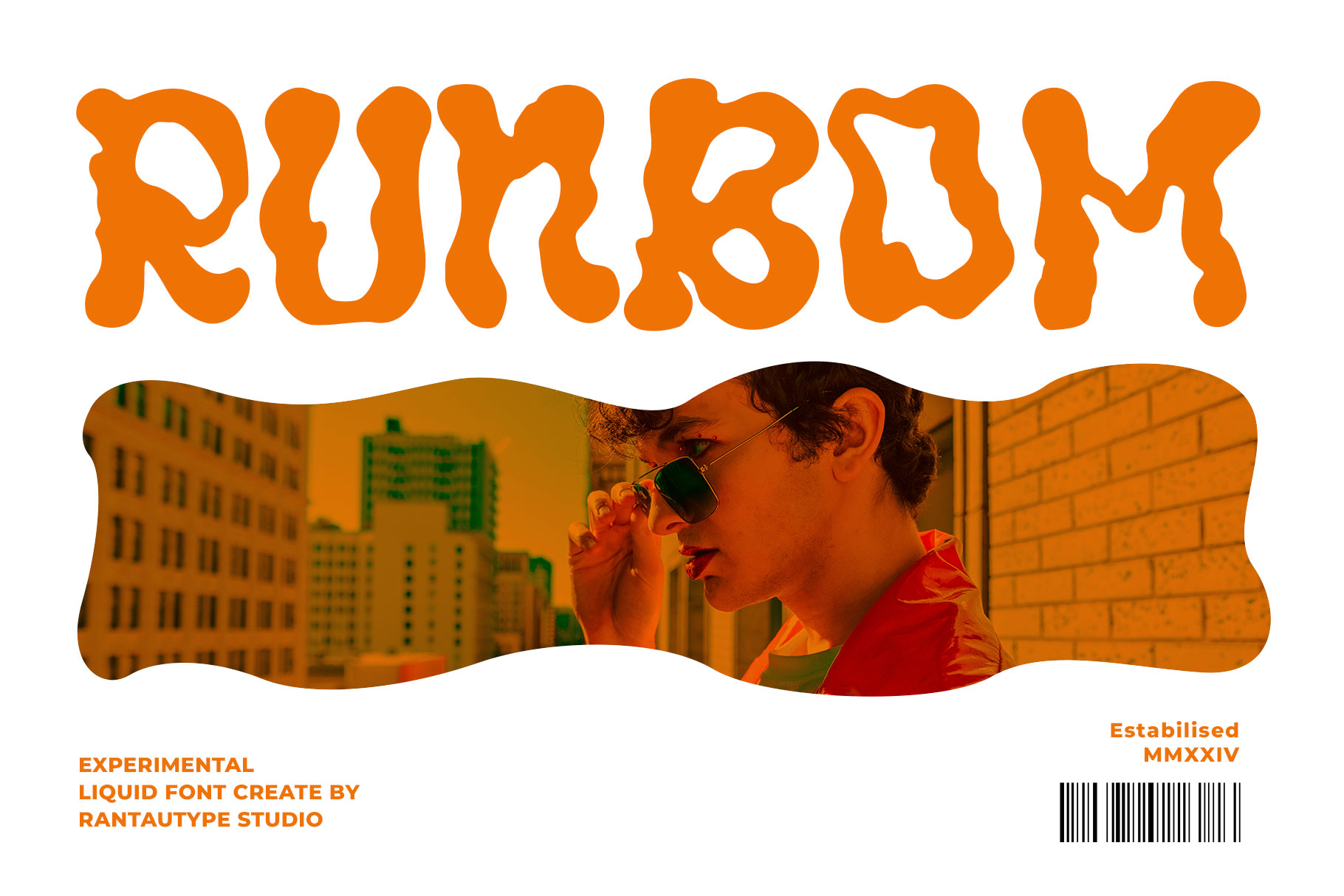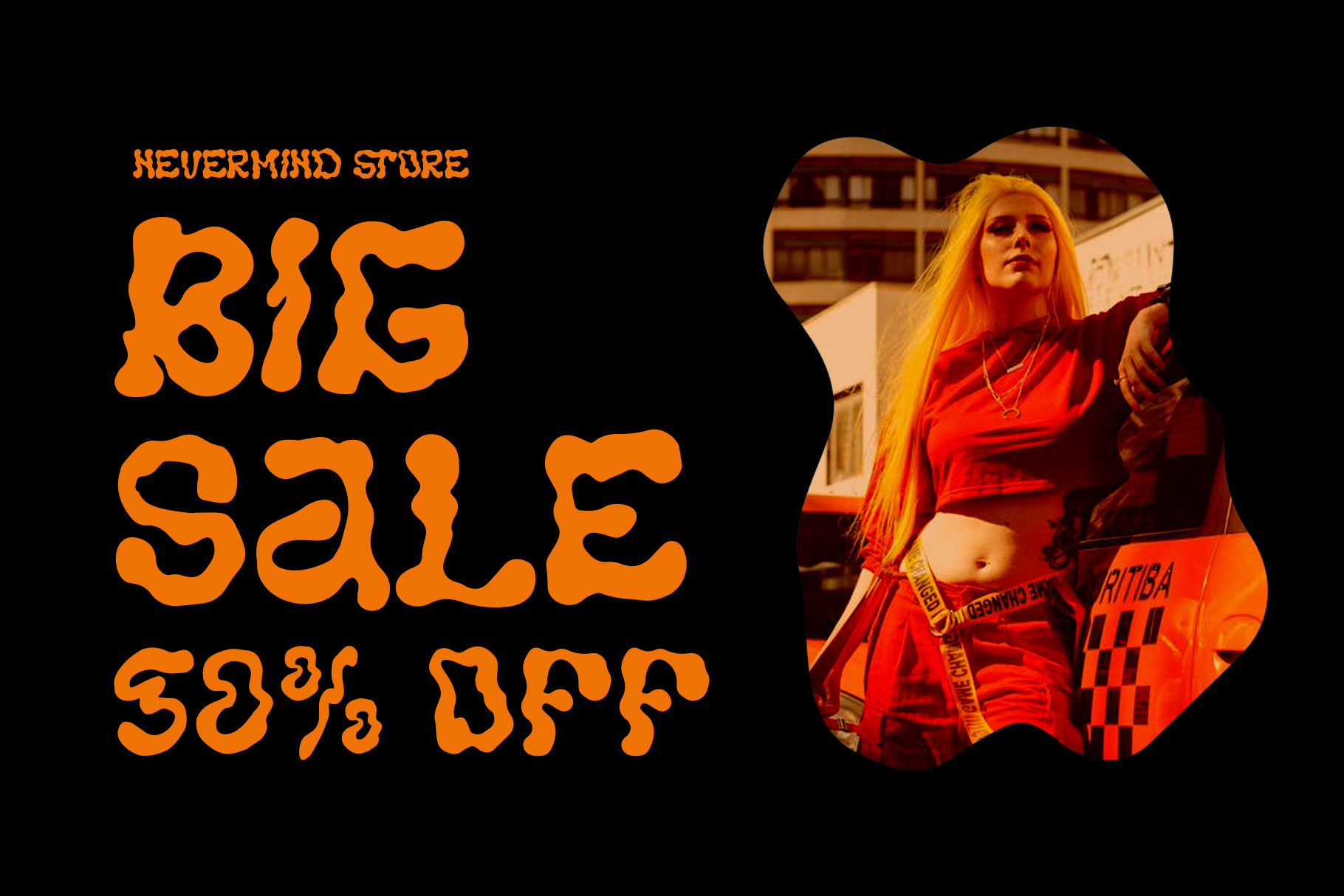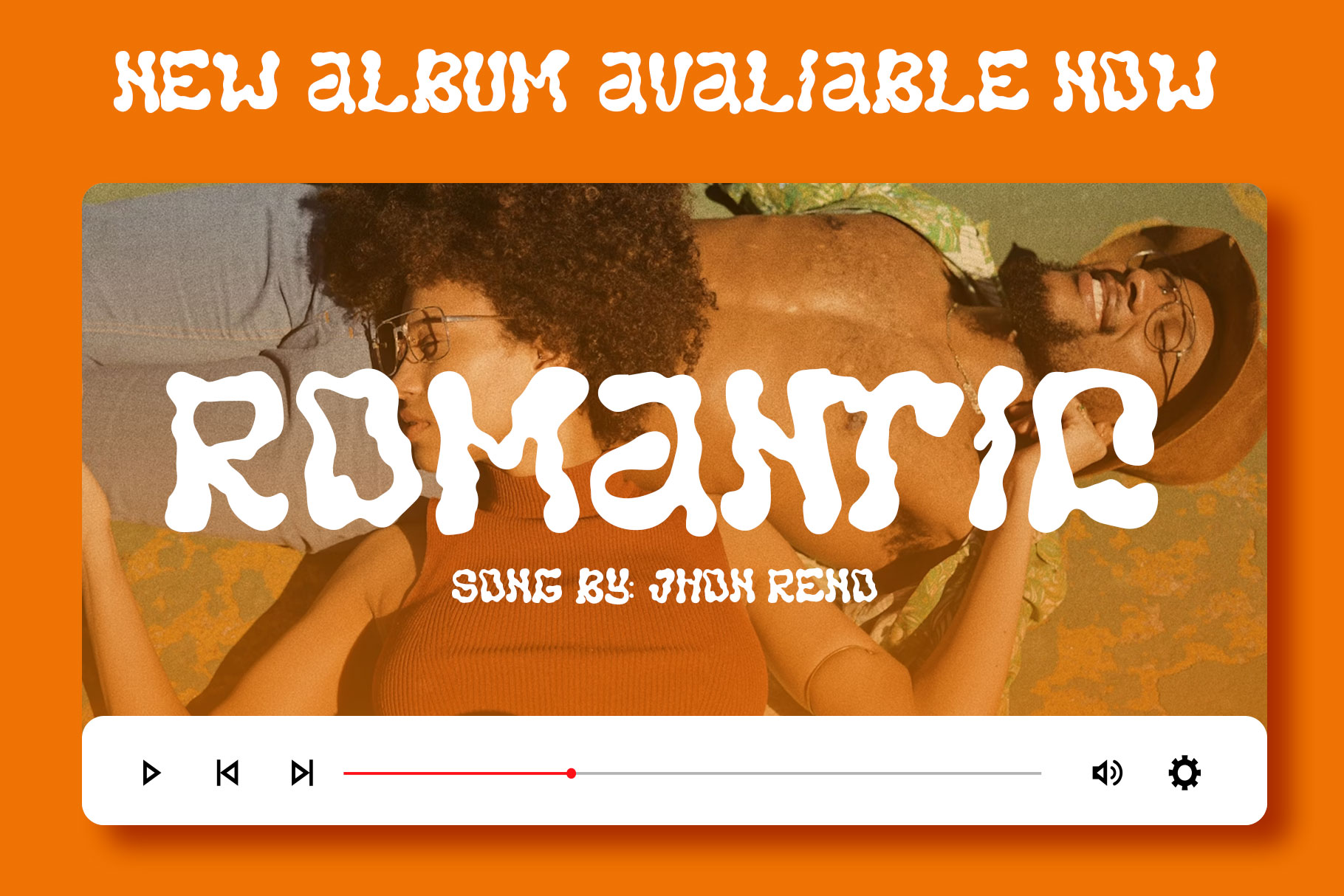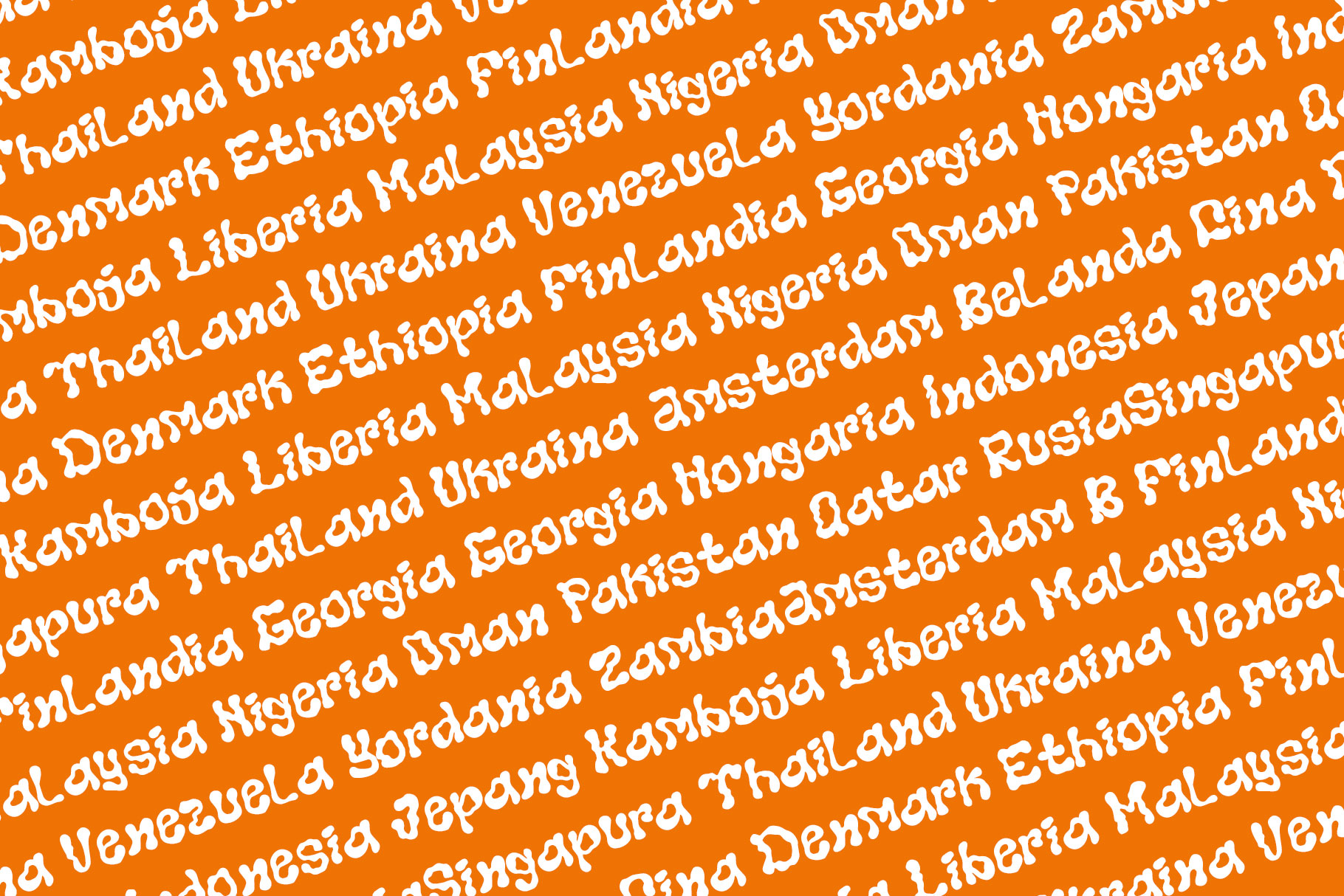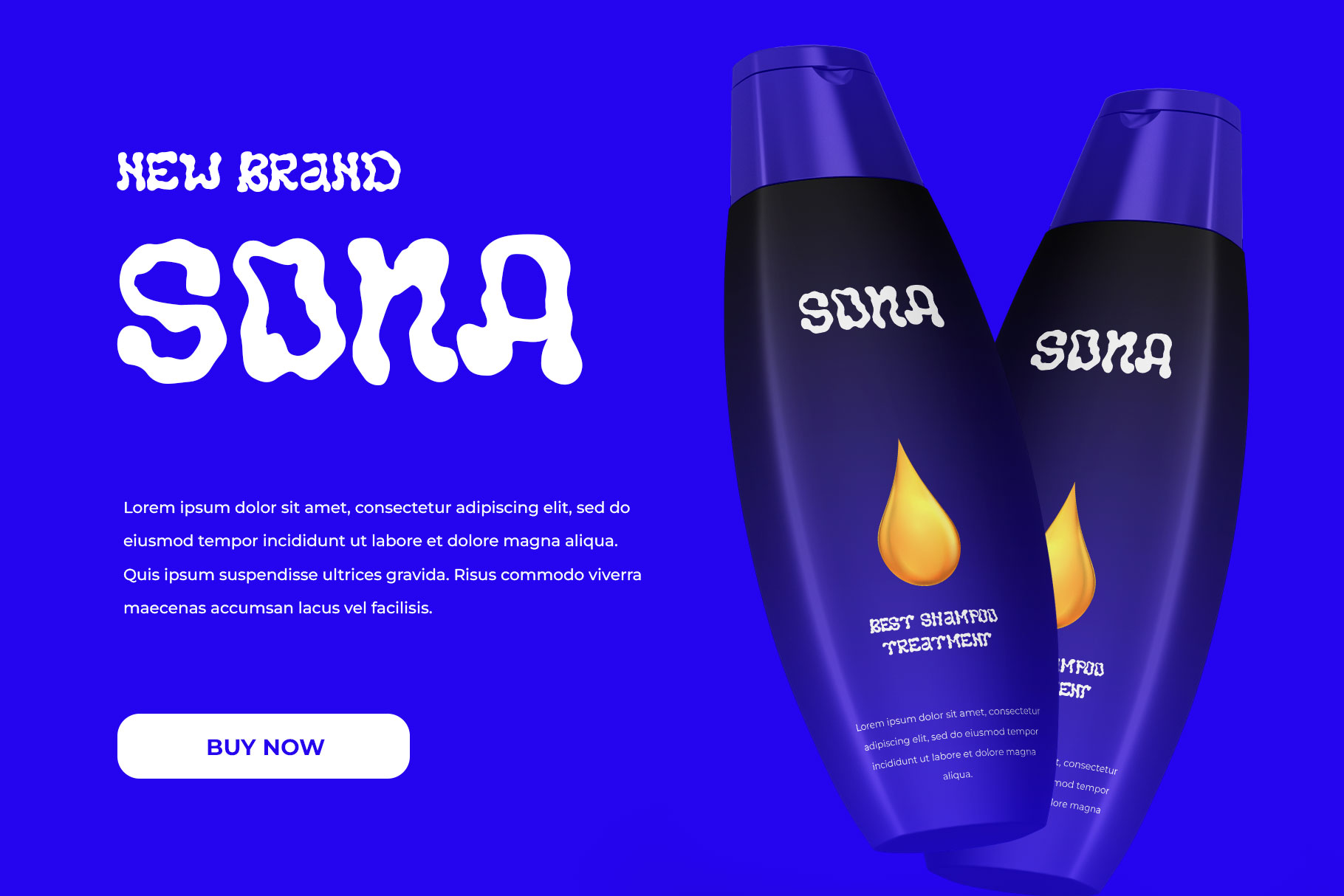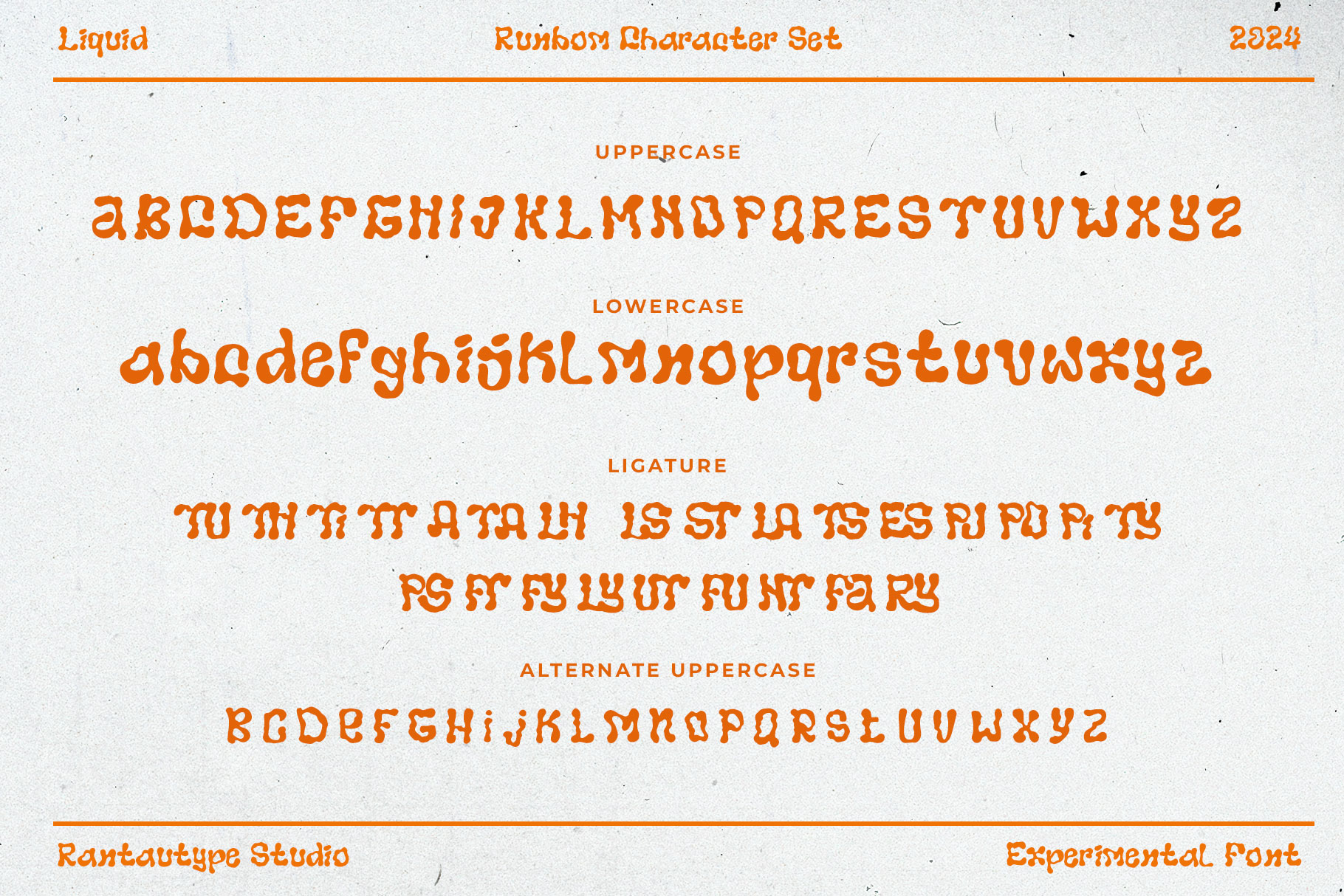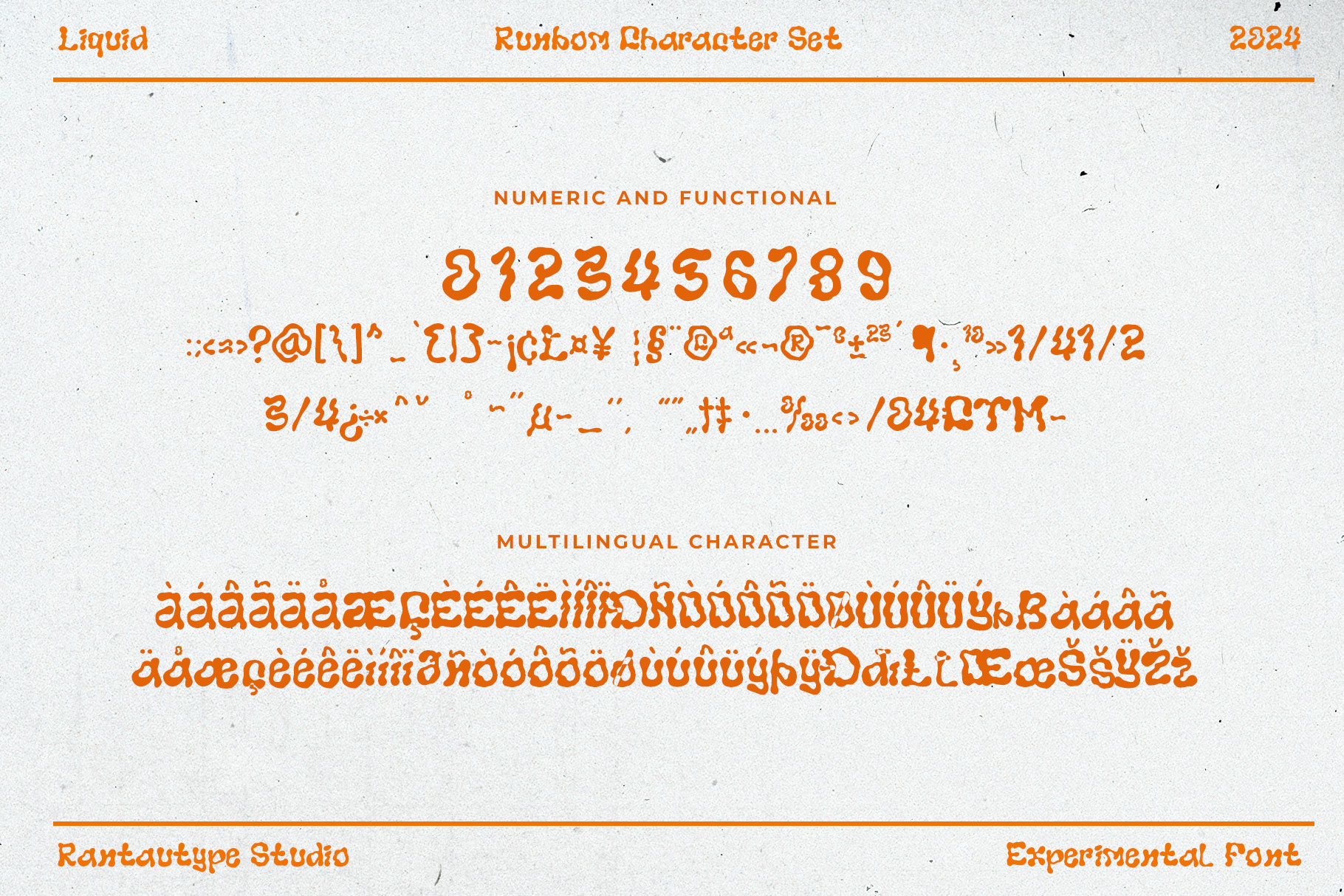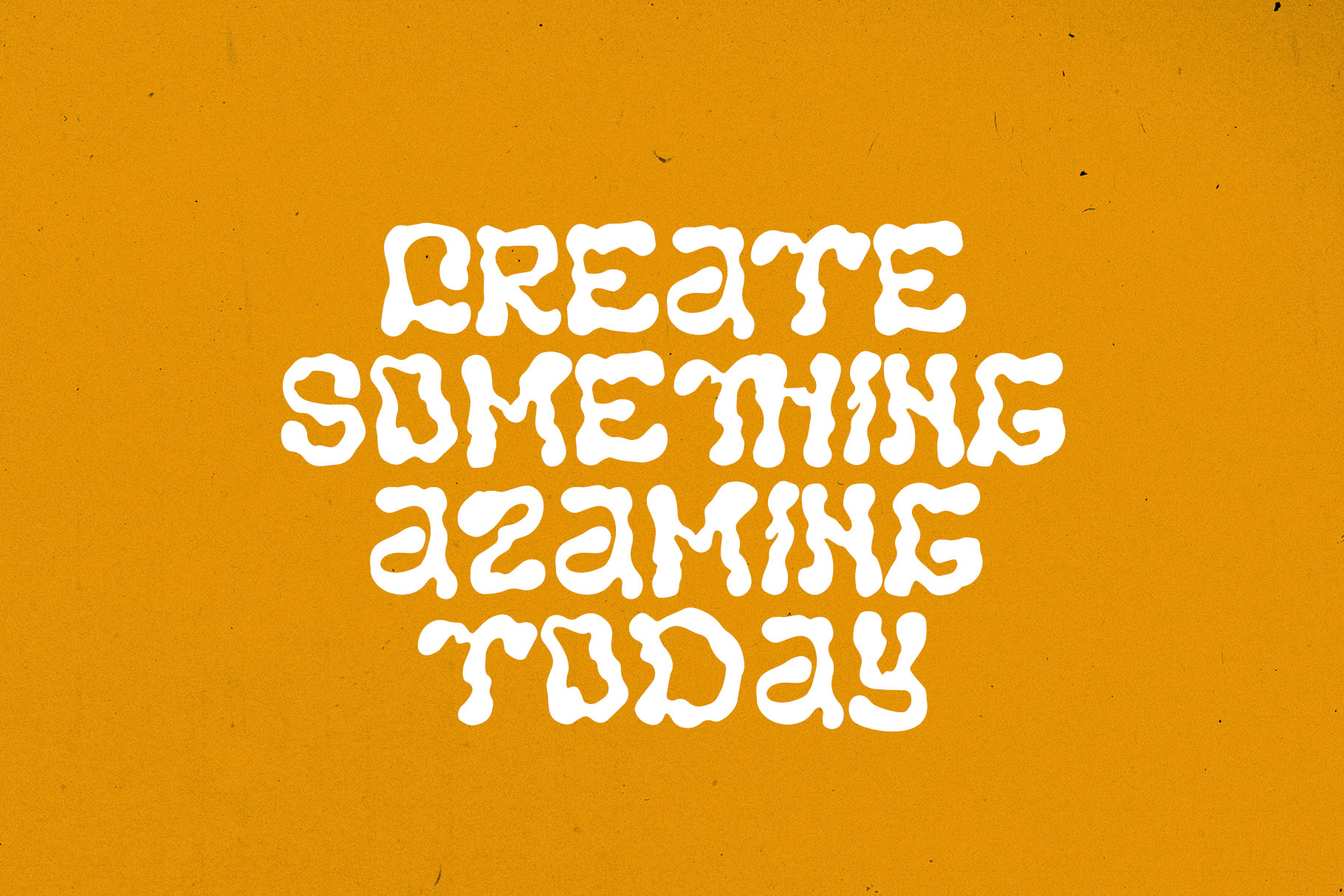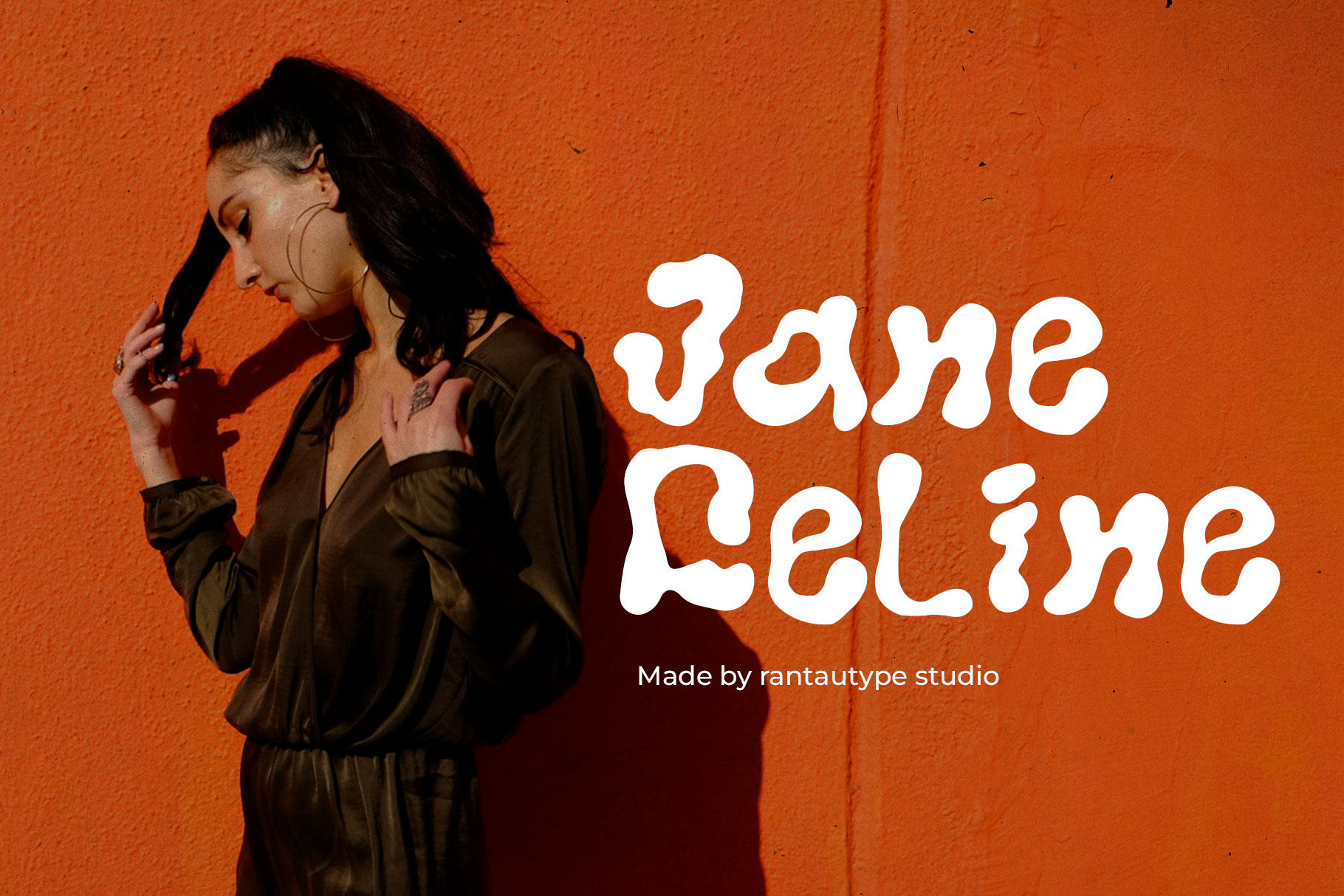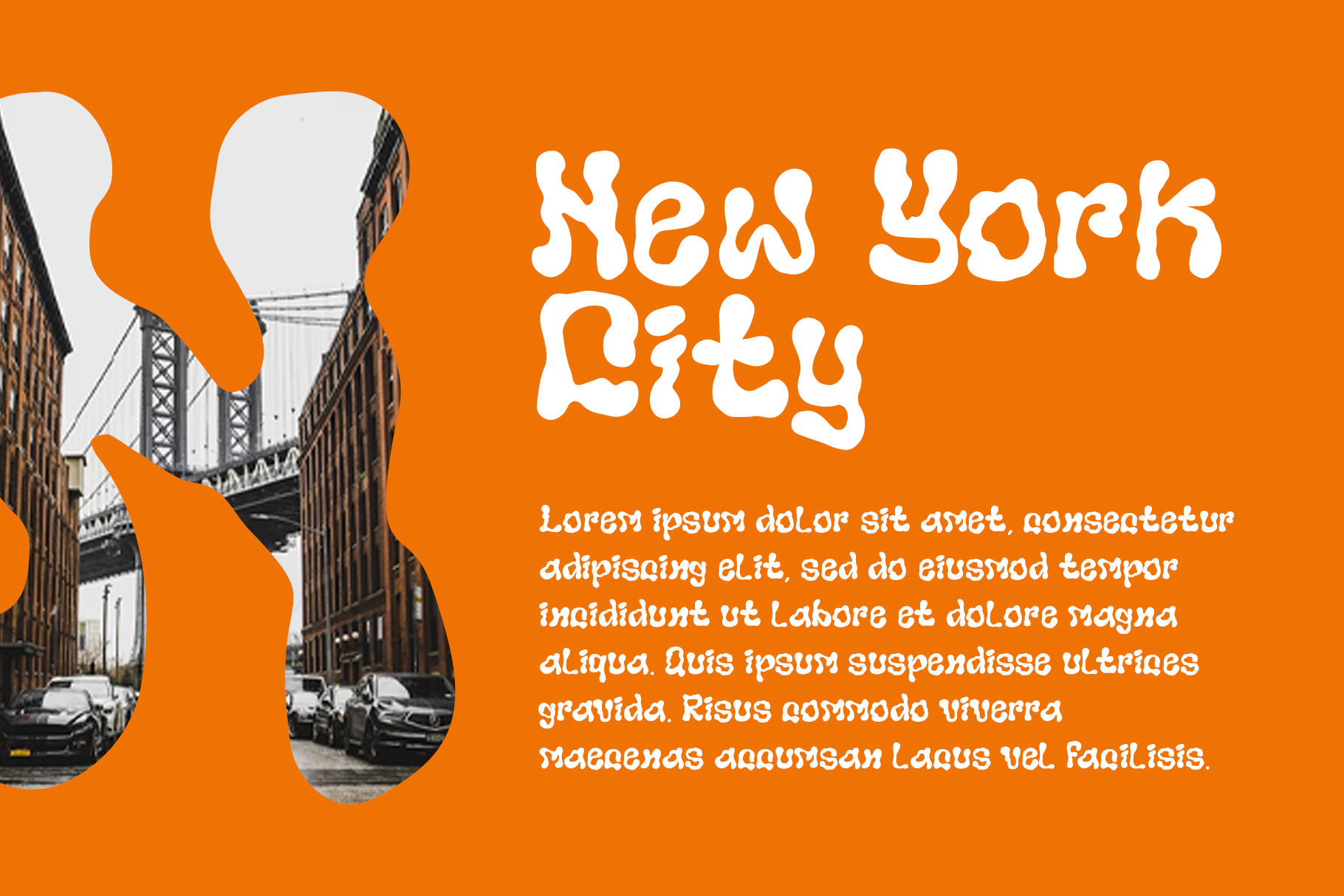
Runbom Experimental Display Font
Runbom is inspired by liquid design, we make into the font for experimental experience. Runbom come with beauty flow of fluid art make it more unique and versatile.
Runbom is perfectly choice for any creative endeavor, such as logos, title, watermark on photography, cover, branding, display and magazine, wedding event, corporate brand, quotes, album cover, business card, business project and many other design project with elegant taste.